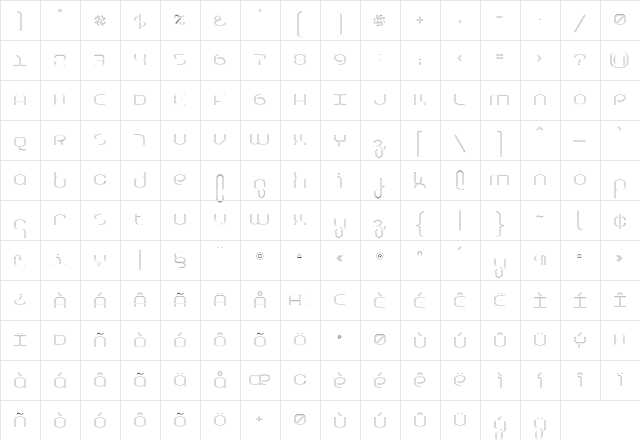
Basix Regular
Design Context for Basix Typeface
Basix is a composed and adaptable typeface that performs quietly and consistently across a wide range of design contexts.
Pro Tip: Pair Basix with a font of contrasting weight or personality to build a more expressive typographic hierarchy.